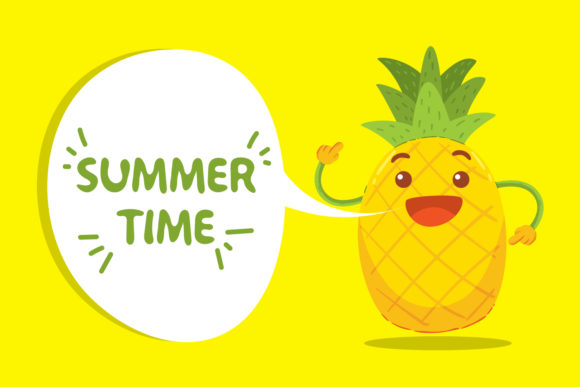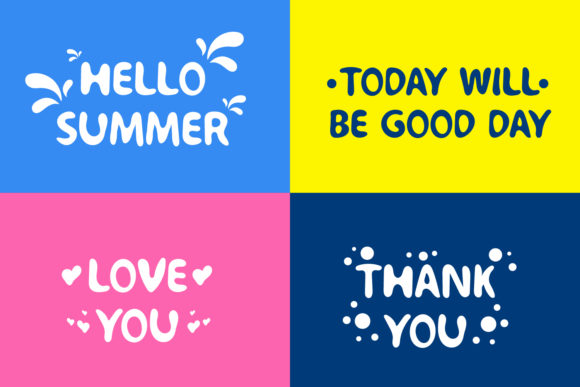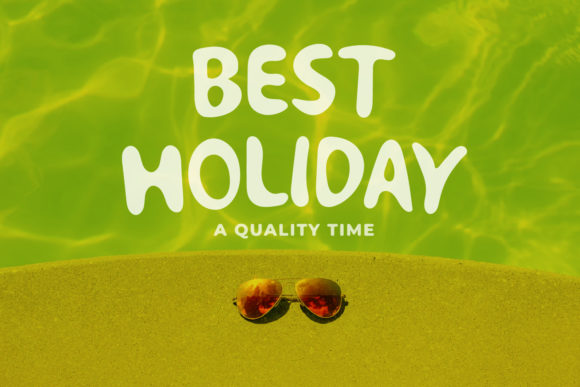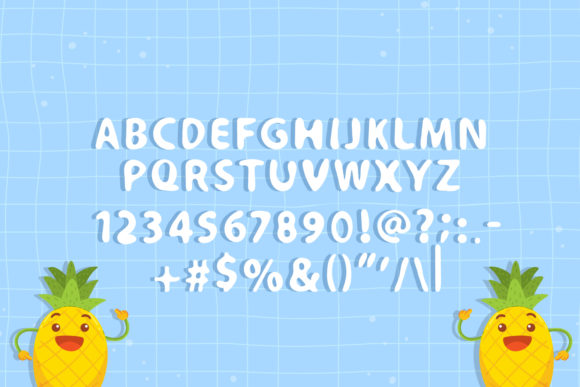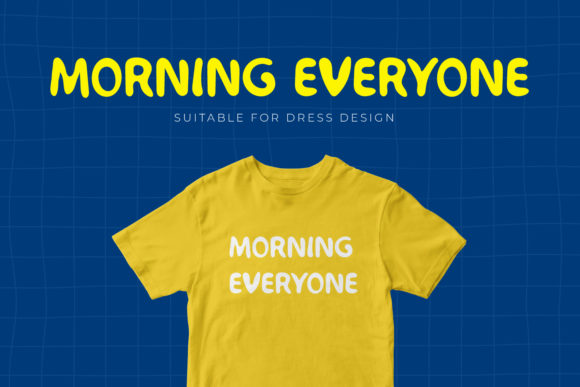
Discover the Perfect Blend of Whimsy and Elegance: Aqualo Font
You know that moment when you stumble upon the perfect font for your next design project? The one that makes your ideas come alive and transports your audience to a world of wonder? That’s exactly what happens when you meet the Aqualo Font – a friendly and cute display font that’s sure to captivate your audience. With its casual charm, Aqualo Font looks and feels like a breath of fresh air, making it the perfect choice for designers who want to add a touch of personality to their work.
Whether you’re working on a brand identity, a social media campaign, or a simple poster, Aqualo Font is the perfect companion to help you create amazing designs that resonate with your audience. Its versatility and ease of use make it a valuable asset for designers, allowing you to experiment with different styles and formats without breaking a sweat. So, what are you waiting for? Dive into the world of Aqualo Font and discover the magic for yourself!
Aqualo Font Key Features
• Font Family: Aqualo is a modern sans-serif font family designed for various applications, including digital and print media.
• Character Set: Supports a wide range of languages, including Latin, Cyrillic, and Greek alphabets, making it suitable for global communication.
• Unique Characteristics: Aqualo features a unique blend of clean lines, geometric shapes, and subtle rounded edges, creating a visually appealing and modern aesthetic.
• Resolution: Designed for high-resolution displays, Aqualo font looks sharp and clear at resolutions up to 300 DPI, making it ideal for digital applications.
Aqualo Font Review
I recently had the chance to work with Aqualo Font, and I have to say, it’s a unique and intriguing font. ✨ One of the things that stands out is its clean and modern aesthetic, making it perfect for a variety of design projects. The font’s water-inspired theme is reflected in its sleek and flowing lines, which adds a touch of sophistication to any design.
Another great aspect of Aqualo Font is its versatility. ✨ It comes in a range of weights and styles, allowing designers to mix and match to create a custom look that suits their project. I also appreciate the font’s legibility, which makes it easy to read even at smaller font sizes.
While Aqualo Font has its strengths, there are some limitations to consider. ⚠️ For one, the font may not be the best choice for projects that require a lot of bold or dramatic typography. Additionally, some users may find the font’s unique style a bit too out there, which could be a turn-off for more conservative design projects.
• Limited expressiveness in bold typography
• May not appeal to users with more traditional design tastes
Overall, I’m impressed with Aqualo Font’s unique style and versatility. While it may not be the best choice for every project, it’s definitely worth considering for designs that require a touch of modern sophistication. With a bit of creative experimentation, Aqualo Font has the potential to elevate any design to the next level.
Getting the Most Out of Aqualo Font
Here are some tips for getting the most out of Aqualo Font:
• Experiment with different font sizes and styles to find the perfect fit for your design.
• Combine Aqualo Font with other fonts for a unique and visually appealing look.
• Use Aqualo Font for headings and titles to add a touch of elegance to your design.
Aqualo Font is perfect for:
• Designing elegant and sophisticated websites and blogs.
• Creating beautiful and unique presentations and reports.
• Adding a touch of elegance to business cards and marketing